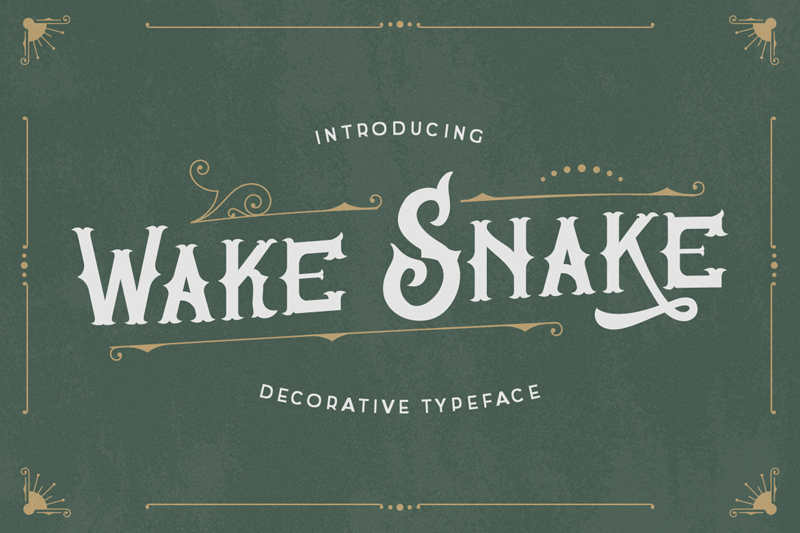
Font name: | Wake Snake |
Author: | Type Factory |
Note by Type Factory | |
Wake Snake is a beautiful font that is capable of handling a ton of project types and designs. This vintage, Victorian inspired font is ideal for a giving your projects a classy and nostalgic feel. Full Version Download Here : https://typefactory.co/product/wake-snake-decorative-vintage-typeface/ https://www.creativefabrica.com/product/wake-snake/ |